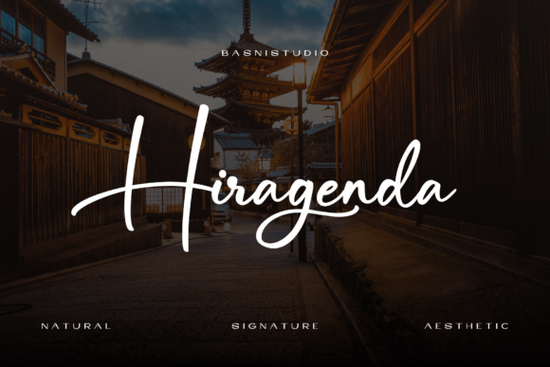
If you're looking for a bold, hand-drawn typeface that feels genuinely handmade, Hiragenda is worth a close look. It's an all-caps quirky handwritten font built around chunky, irregular block letters that mimic the raw energy of thick ink marker strokes. Every character has its own personality unexpected notches, uneven stems, and sharp geometric cuts give it a rough, authentic feel that polished fonts simply can't replicate. Whether you design merchandise, work on social media content, or run a small business, this font brings a bold handmade aesthetic to the table.
What Makes Hiragenda Font Different from Other Handwritten Typefaces?
Plenty of fonts claim to be "handwritten," but many of them look too smooth or too uniform to feel real. Hiragenda takes a different approach. Its letterforms are intentionally imperfect heavy silhouettes are broken up by geometric cuts, and each letter has slightly different proportions. The result looks like someone actually sat down with a fat marker and drew each character by hand.
This isn't a delicate script font. It's loud, chunky, and unapologetically bold. If you've used clean, elegant scripts like Summer Love or Staying for past projects, Hiragenda is the complete opposite end of the spectrum. It fills a very different role high-impact headlines, attention-grabbing titles, and designs where you need visual weight.
Who Is This Font Best Suited For?
Hiragenda works well for a specific type of creative work. Here's who will get the most out of it:
- Print-on-demand sellers designing alternative or streetwear-style merchandise think bold t-shirt graphics, sticker packs, and poster prints
- Zine and comic creators who need gritty, expressive headings that match the DIY energy of independent publishing
- Food truck owners and small food brands looking for casual, approachable branding that stands out on menus and signage
- Social media managers and content creators who need high-visibility titles that stop the scroll
- Packaging designers working on artisan or craft products that benefit from a handmade look
- Poster and layout artists creating event flyers, gig posters, or artistic compositions
If your project calls for something refined and flowing, you might prefer a script like Big Daddy or Summer Cupcake. But when you need something that hits hard and looks raw, Hiragenda is the right call.
How Should You Pair Hiragenda with Other Fonts?
Because Hiragenda is an all-caps display font, it's designed for headlines and short text not body copy. You'll want to pair it with a clean, readable font for any supporting text. Here are a few pairing ideas:
- With a simple sans-serif: Use Hiragenda for your headline and a neutral sans-serif for subheadings and body text. This keeps the focus on the bold display type without overwhelming the reader.
- With a light script: Combining a chunky display font with a softer handwritten script creates nice contrast. Something like Alluna could work as an accent font alongside Hiragenda's heavy blocks.
- With a monospace or typewriter font: For zine layouts or indie branding, mixing bold marker-style letters with a typewriter texture can look really intentional and cool.
The key is contrast. Since Hiragenda is already bold and textured, keep everything else around it relatively quiet.
Where Does Hiragenda Work Best in Real Projects?
Let's get specific about practical use cases:
- T-shirt designs: Short, punchy phrases in Hiragenda look great on apparel, especially for alternative or street-style merch
- Instagram and TikTok titles: The chunky lettering reads well at small sizes and grabs attention in crowded feeds
- Menu boards and food truck branding: It has that casual, approachable vibe that works perfectly for food-related businesses
- Event posters and flyers: Gig posters, festival graphics, and community event promos benefit from the handmade energy
- Book and zine covers: Independent publishers can use it for cover titles that feel authentic and DIY
- Product packaging: Craft goods, artisan products, and small-batch items get a personal touch with this kind of typeface
Is Hiragenda Worth Adding to Your Font Library?
If you regularly work on projects that need a bold, handmade look then yes. It fills a niche that many font collections overlook. Most "handwritten" fonts lean either too elegant or too casual. Hiragenda lands in a sweet spot: it's expressive and imperfect, but still structured enough to be highly readable in headlines.
It's especially useful if you sell on print-on-demand platforms or create social media content regularly. Having a go-to bold handwritten font saves time and keeps your designs feeling fresh and varied.
- ✅ Do you need an all-caps display font for headlines? (Not suitable for long paragraphs)
- ✅ Are you working on merchandise, posters, packaging, or social media graphics?
- ✅ Do your projects call for a raw, hand-drawn aesthetic over a polished, clean look?